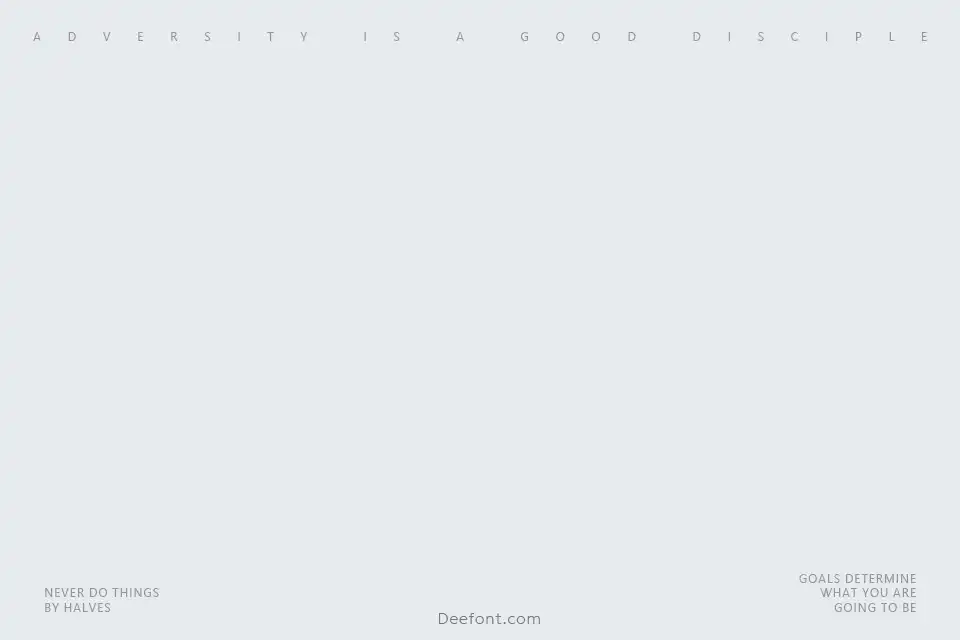
Futura PT Font Family
Futura PT Font Family is a modern geometric sans-serif typeface designed by Paul Renner and later expanded by Vladimir Yefimov and Isabella Chaeva. Released in 1927, it embodies the principles of modernism with its clean lines and harmonious proportions, making it a versatile choice for various design applications. Futura PT is characterized by its low contrast, uniform stroke widths, and geometric shapes, which lend it a timeless appeal suitable for both display and body text. Its extensive family includes multiple weights and styles, enhancing its usability across different media.
Features of Futura PT:
- Geometric Design: Based on simple shapes like circles and triangles.
- Multiple Weights: Available in Light, Book, Medium, Demi, Bold, Extra Bold, Heavy, and Condensed styles.
- Cyrillic Support: Includes characters for Cyrillic scripts.
- Web and Print Compatibility: Suitable for both digital and print design projects.
- Extensive Language Support: Covers a wide range of languages.
FAQs about Futura PT:
Who designed the Futura PT font?
Futura PT was originally designed by Paul Renner and later adapted by Vladimir Yefimov and Isabella Chaeva.
What are the main characteristics of Futura PT?
It features geometric shapes, low contrast strokes, and a variety of weights and styles.
What types of projects is Futura PT suitable for?
It is ideal for branding, advertising, editorial design, and any project requiring a clean, modern aesthetic.
Designed by:Paul Renner,Vladimir Yefimov, Isabella Chaeva Website